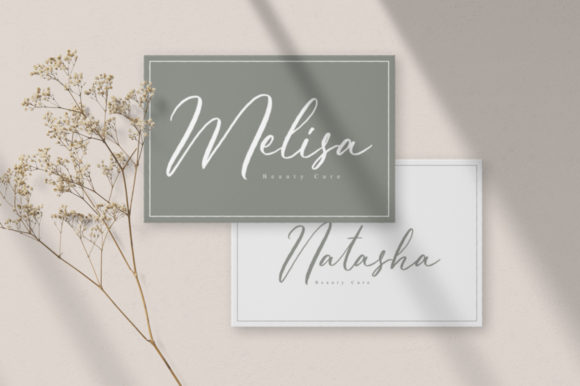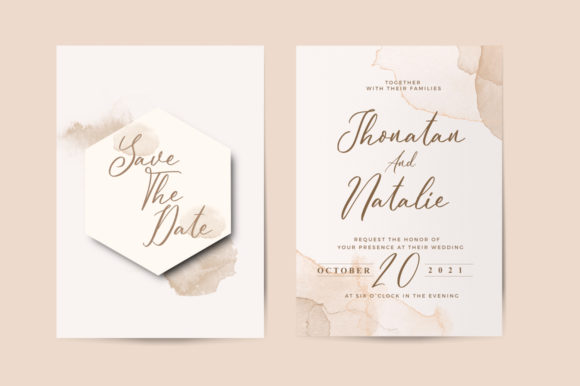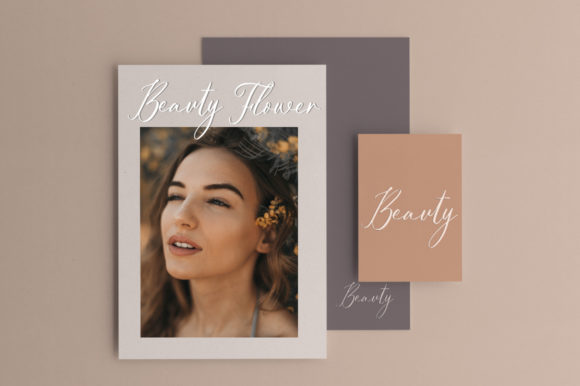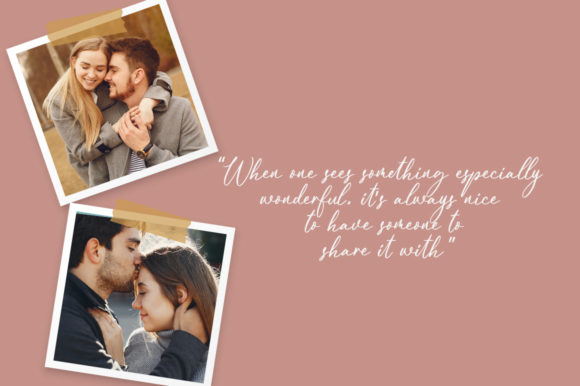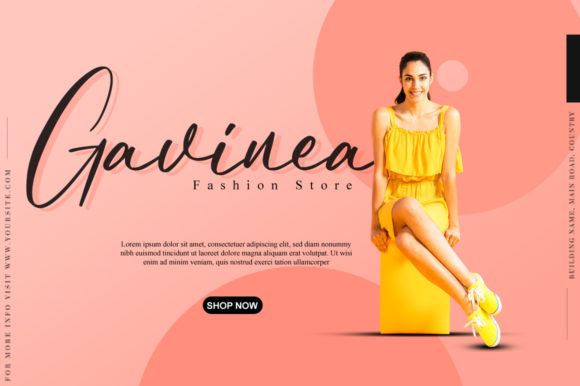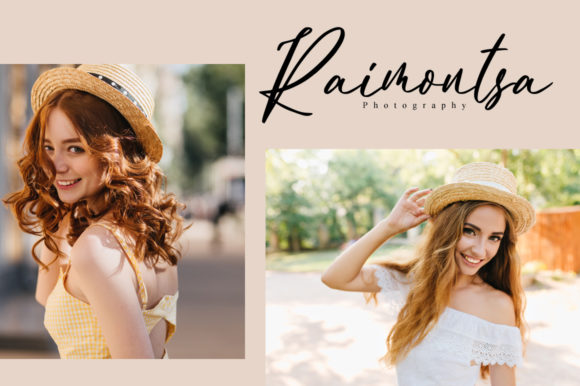
Introducing Alexanna Font: Elevate Your Designs with Elegant Script
Are you on the hunt for a font that exudes elegance, sophistication, and a touch of modern flair? Look no further than Alexanna Font, a stunning script font that is sure to elevate your designs to new heights. Inspired by timeless classic calligraphy, Alexanna boasts a contemporary atmosphere and impeccable form, making it the perfect addition to your typographic arsenal.
A Balanced and Versatile Font
One of the standout features of Alexanna Font is its masterful balance of thickness and thinness. Not too thin and not too thick, this font strikes the perfect chord, ensuring that your text is always legible and visually appealing. The varied strokes and carefully crafted letterforms add a level of sophistication and refinement, making Alexanna an excellent choice for a wide range of design projects.
Whether you’re a seasoned designer or a crafty DIY enthusiast, Alexanna Font is an excellent addition to your toolkit. This versatile font can be used for a variety of applications, including:
- Digital graphics and social media assets
Timeless Classic Calligraphy Inspiration
Alexanna Font draws inspiration from the world of classic calligraphy, where the art of beautiful handwriting is revered. The font’s elegant letterforms, fluid connections, and precise craftsmanship evoke the feeling of handwritten script, while its contemporary twist ensures that it remains fresh and modern.
Key Features of Alexanna Font
So, what sets Alexanna Font apart from other script fonts on the market? Here are just a few of its key features:
- Elegant and refined letterforms
- Balanced and varied strokes
- Contemporary atmosphere and impeccable form
- Legible and visually appealing
- Perfect for a wide range of design applications
Why Choose Alexanna Font?
With so many fonts to choose from, why should you opt for Alexanna Font? Here are just a few compelling reasons:
- Uniqueness: Alexanna Font offers a distinctive and stylish alternative to more traditional fonts.
- Versatility: This font can be used for a wide range of design projects, from logos and branding to packaging and digital graphics.
- Elegance: Alexanna Font exudes sophistication and refinement, making it perfect for high-end designs.
- Legibility: The font’s careful craftsmanship ensures that your text is always easy to read.
In conclusion, Alexanna Font is an exceptional script font that is sure to elevate your designs to new heights. With its elegant letterforms, balanced strokes, and contemporary atmosphere, this font is perfect for designers and crafters looking to add a touch of sophistication and refinement to their work. Whether you’re working on a logo, wedding invitation, or packaging design, Alexanna Font is an excellent choice. So why wait? Discover the beauty of Alexanna Font today and take your designs to the next level!